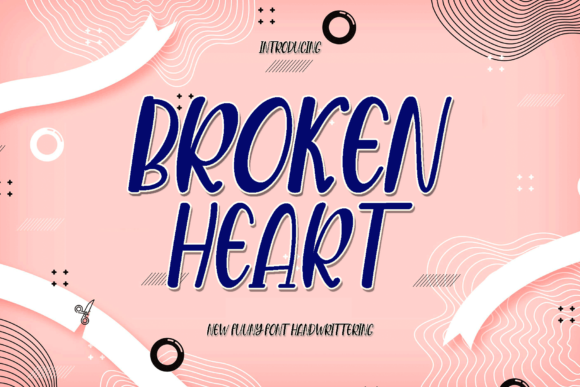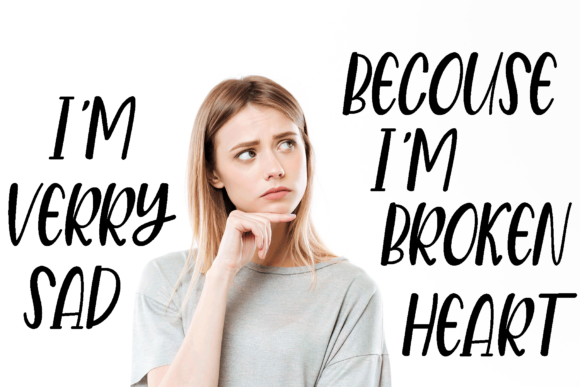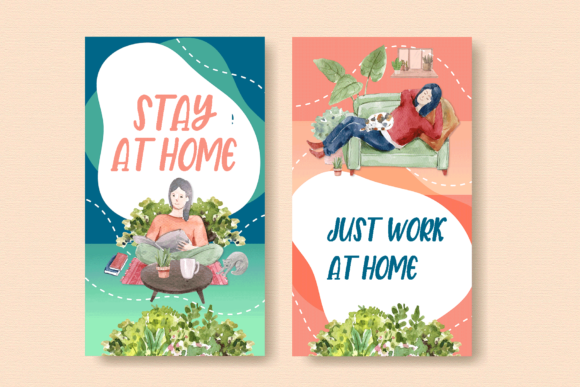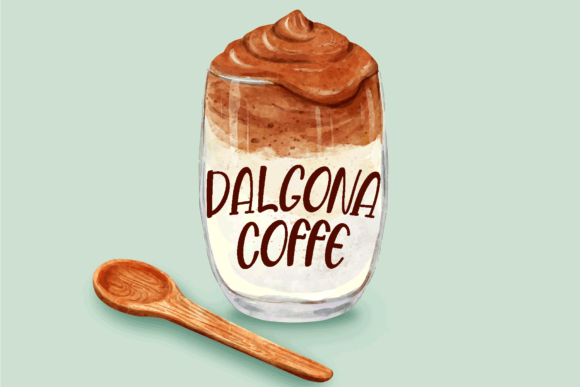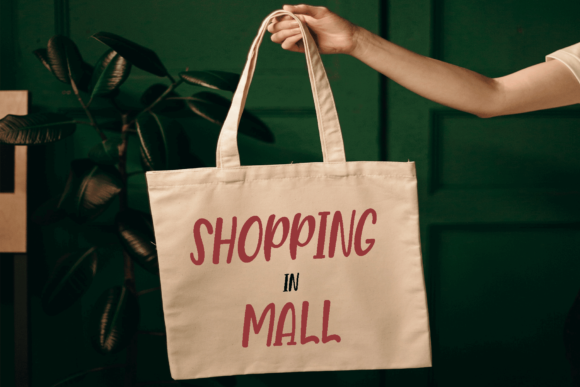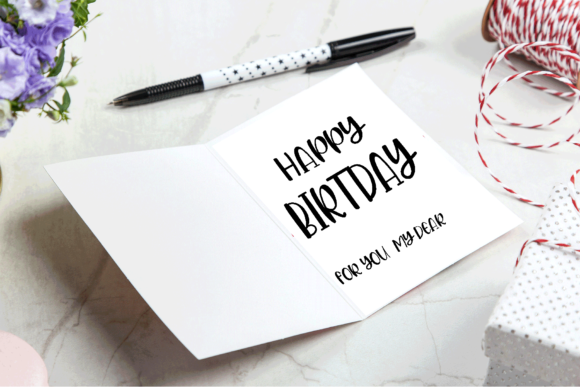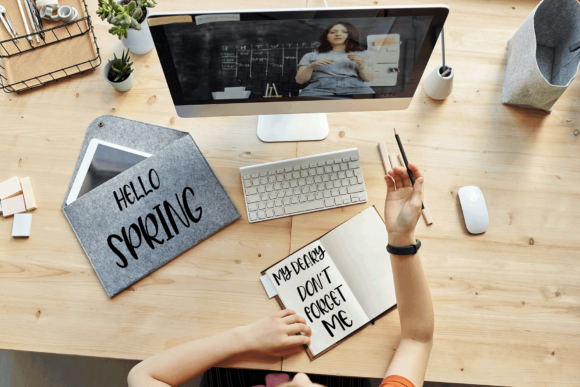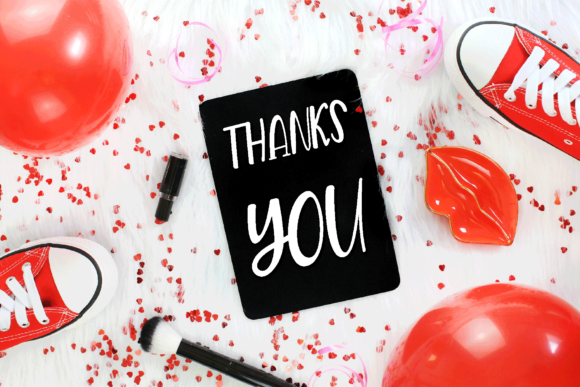
Broken Heart Font
About Broken Heart Font
Broken Heart results out of a stunning pairing of a brush pen and pencil that makes it look incredibly endearing and authentic. Use this gorgeous and unique handwritten font to bring any DIY project to life!